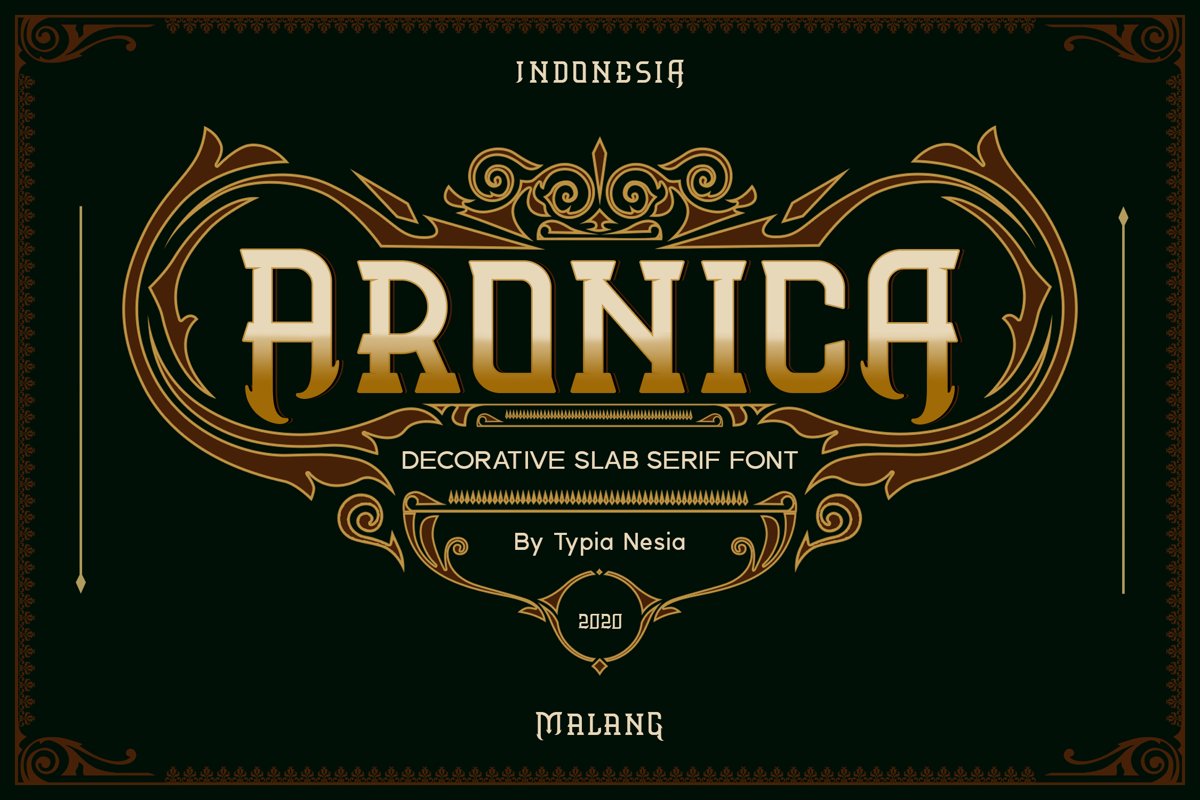
Aronica Decorative Slab Serif - Fantasy Game Display Font
Aronica font is perfect for your up coming projects. Such as logo branding, game, fantasy novel, movie, editorial design, stationery design, sport design, blog design, modern advertising design, card invitation, art quote, home decor, book/cover title, special events and any more.